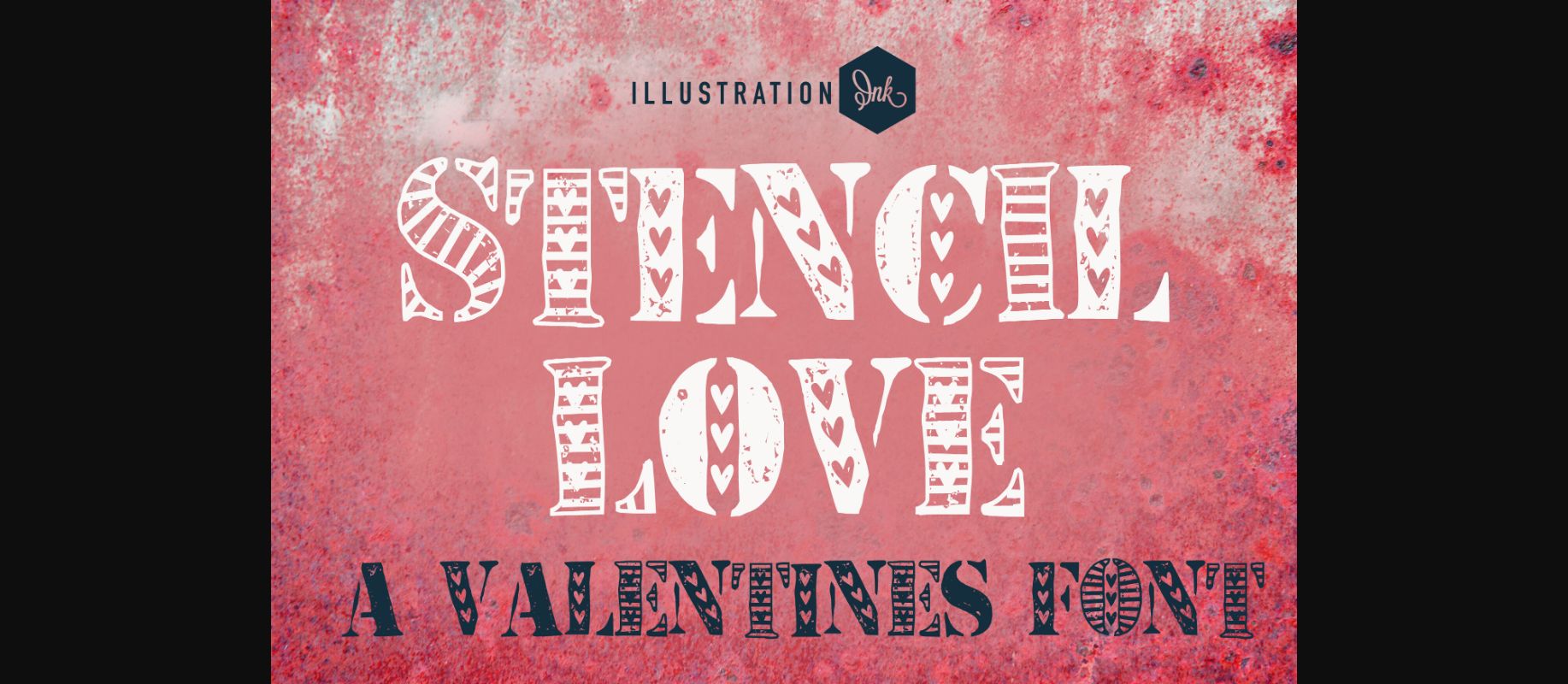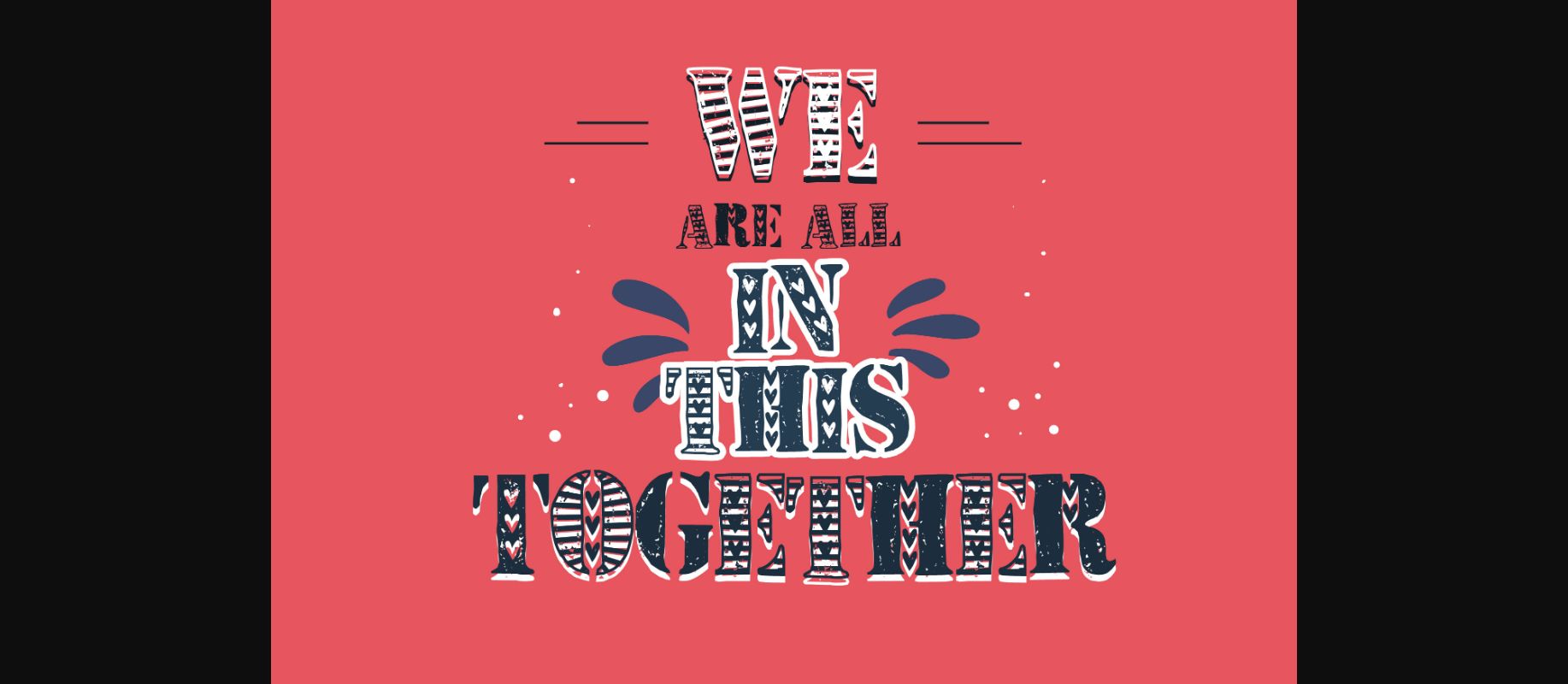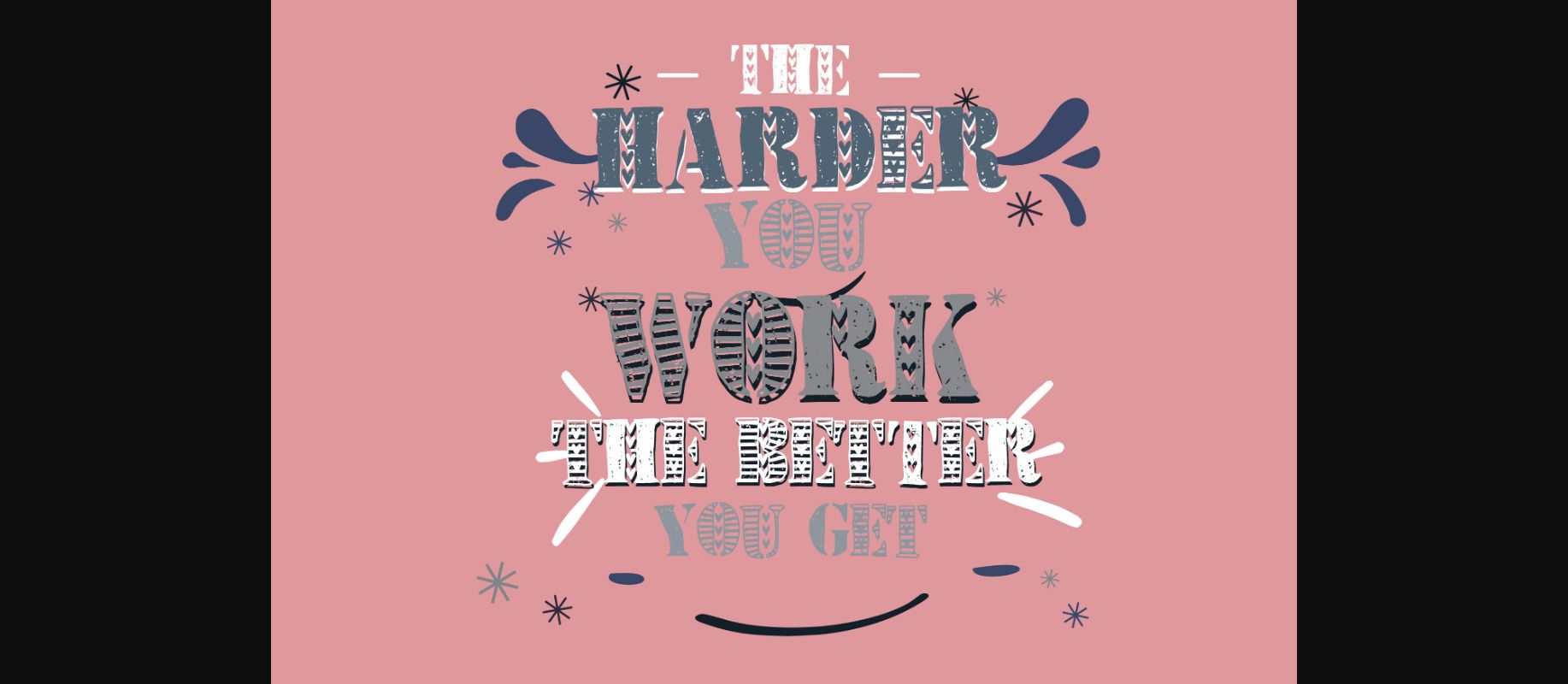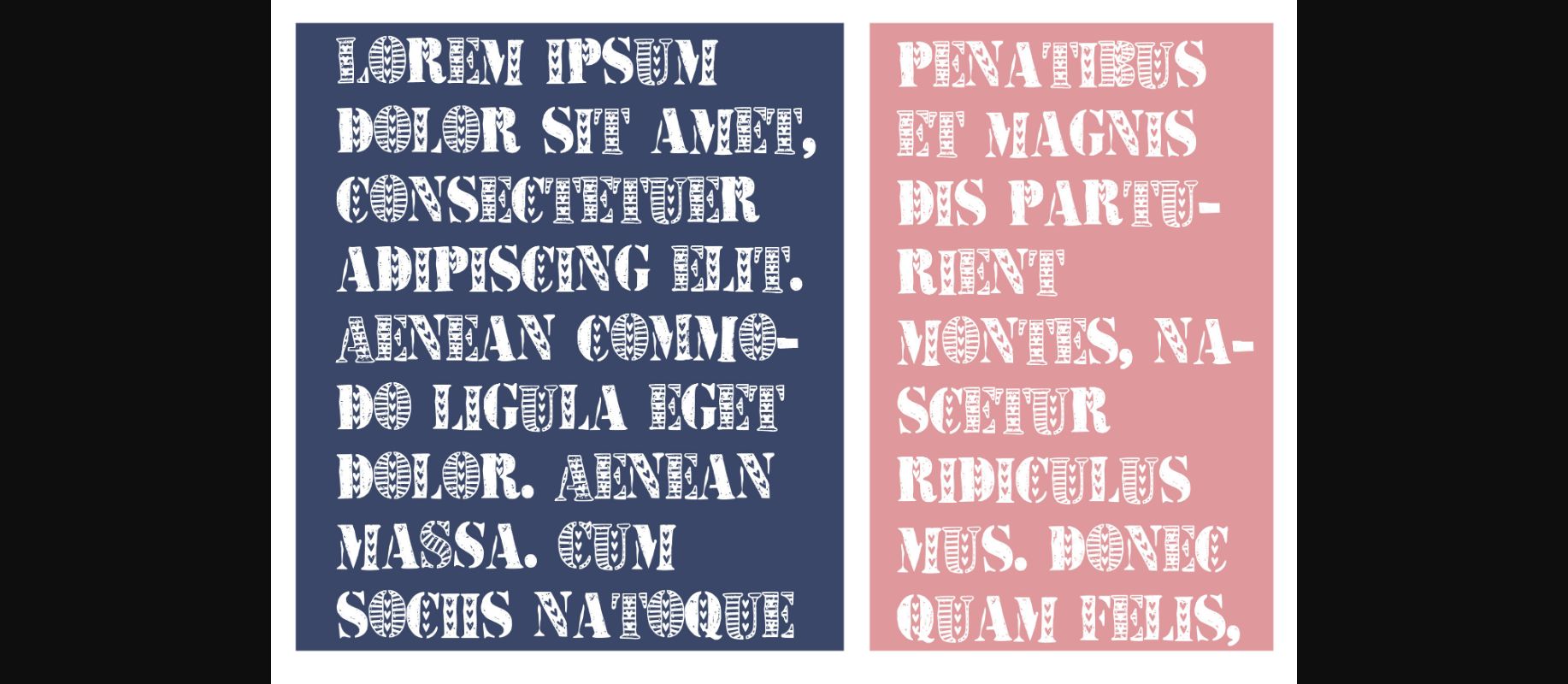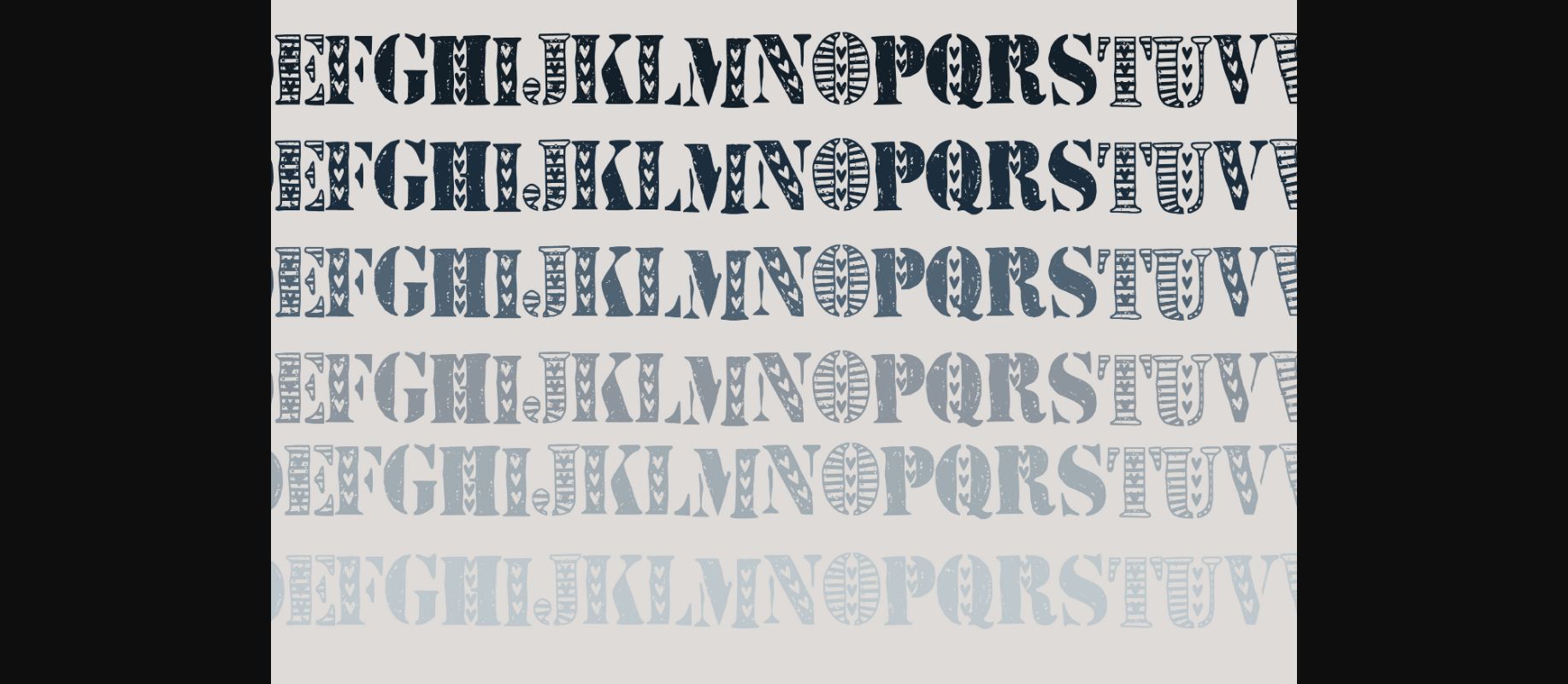
Stencil Love Font
About Stencil Love Font
This simple serif font sports a lot of grunge, stripes, and hearts. No matter the topic, this font will be an incredible asset to your fonts’ library, as it has the potential to elevate any creation.